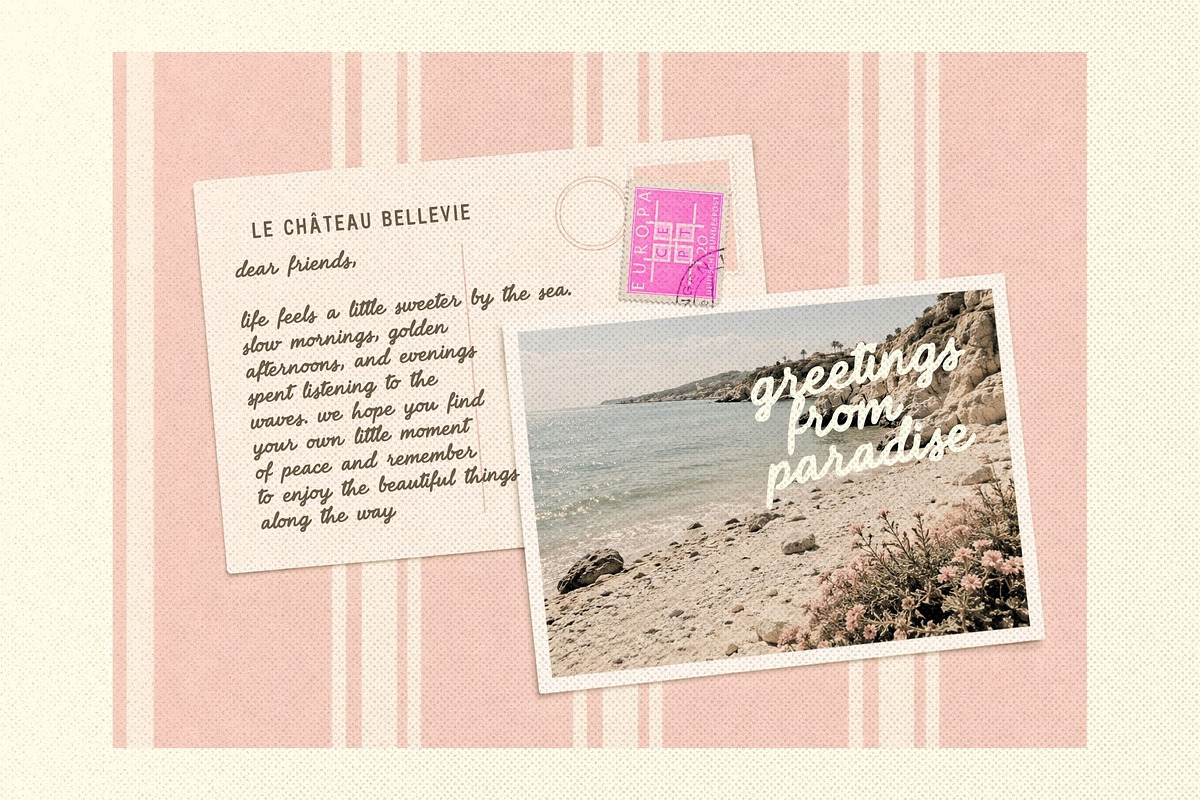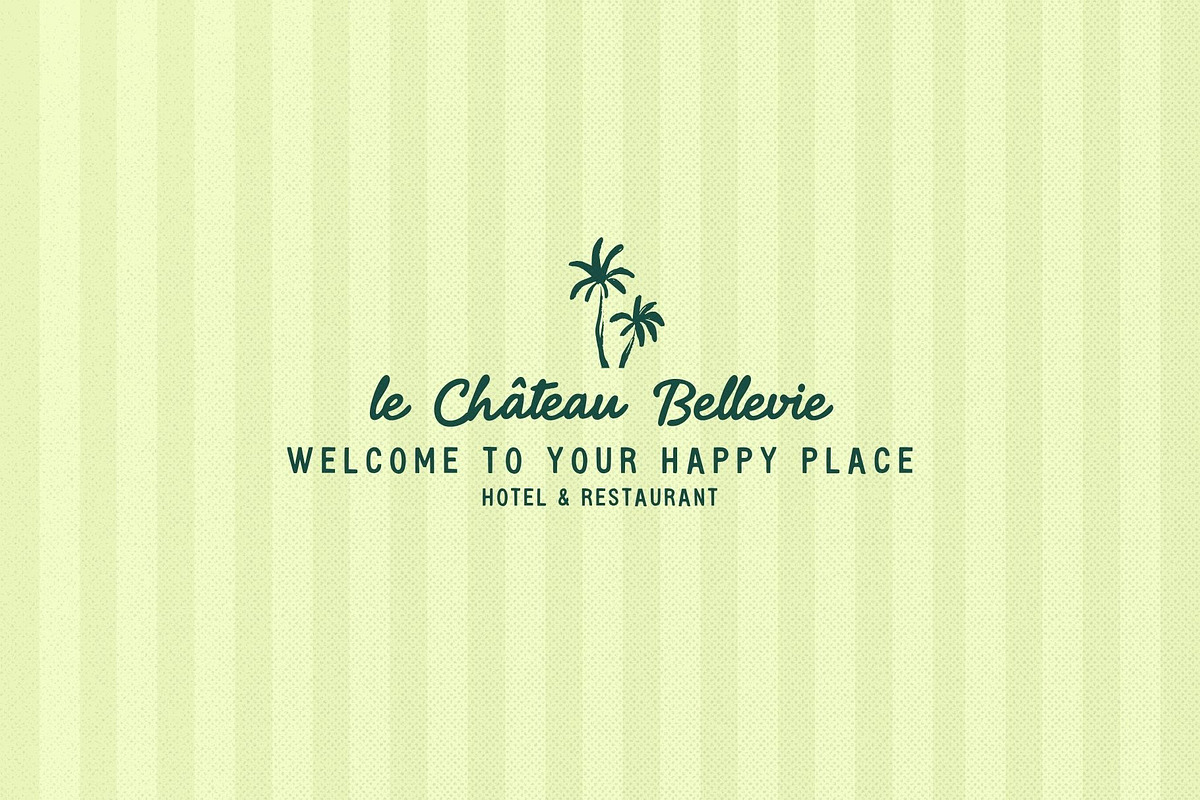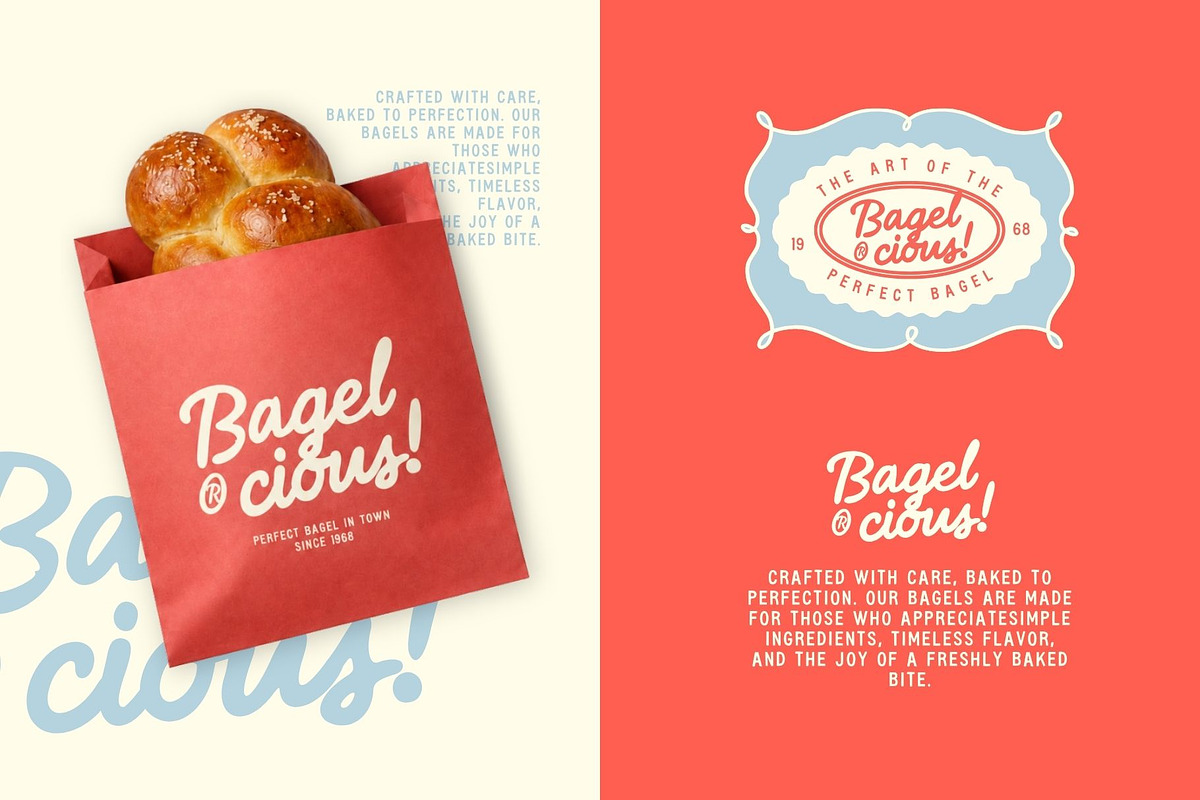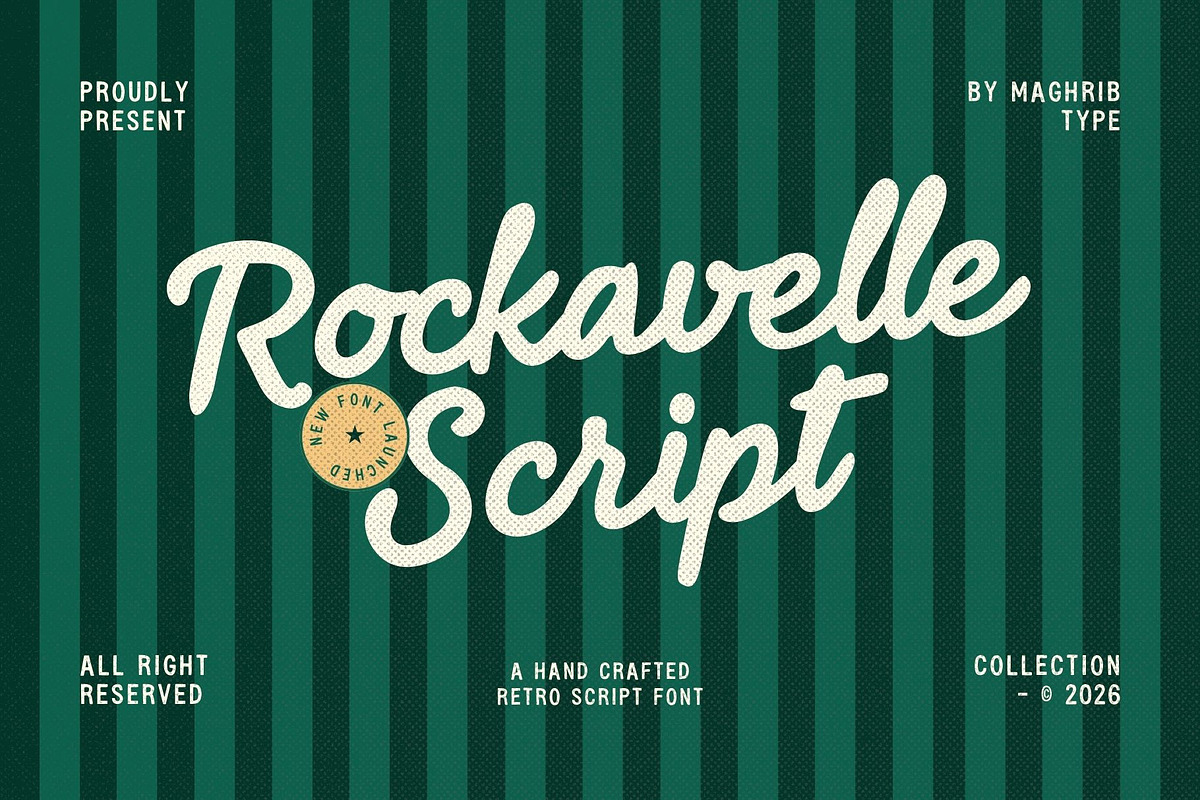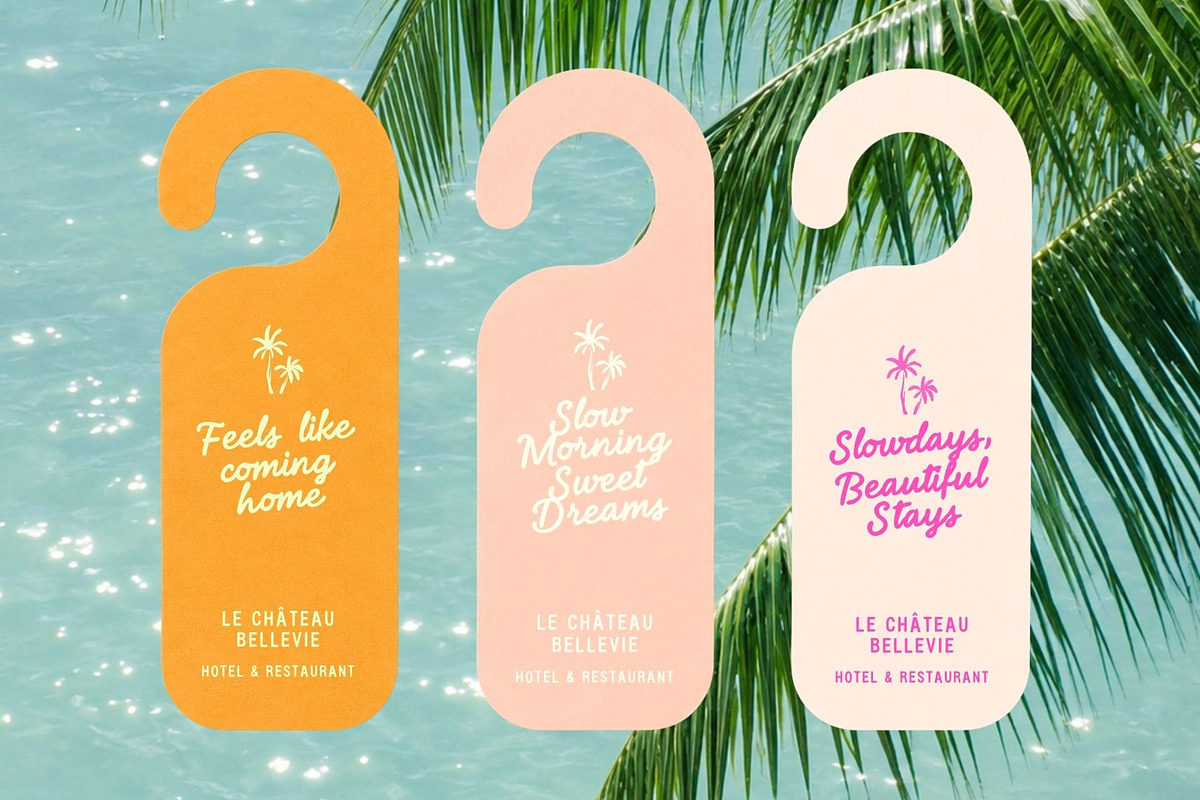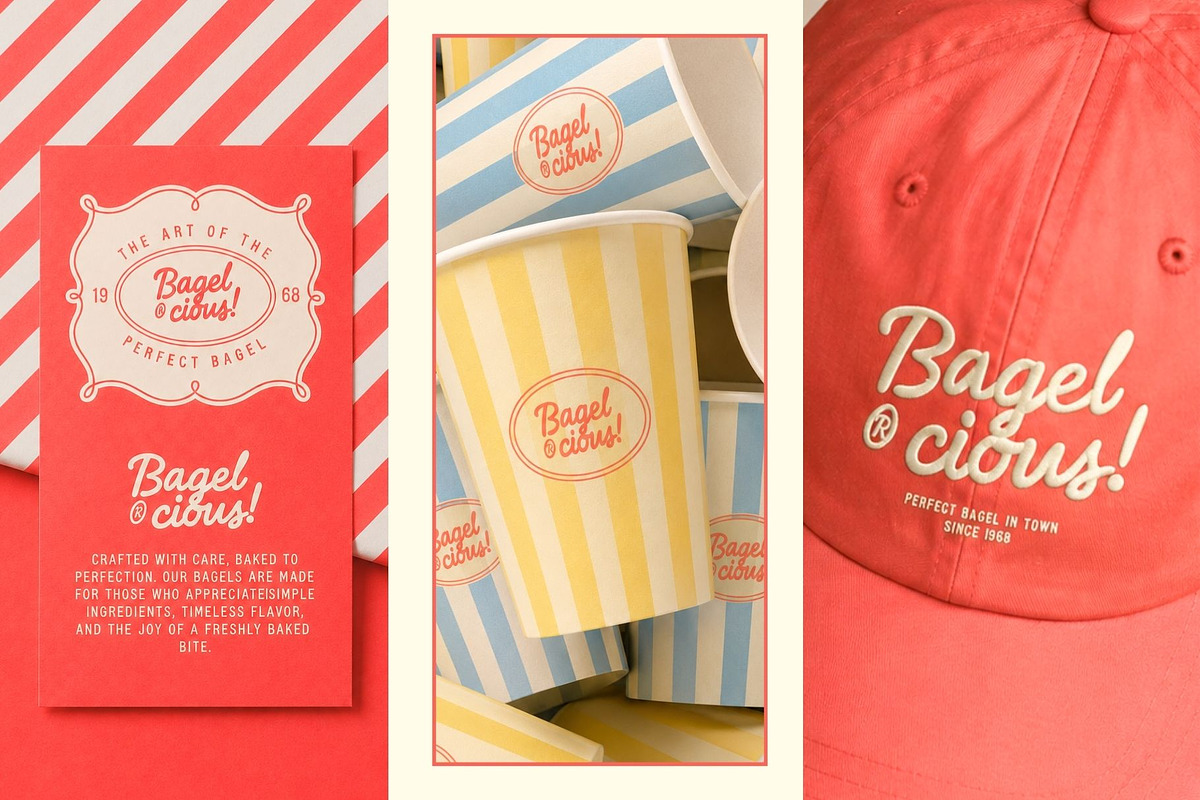
Rockavelle Script
Rockavelle Script – Retro Summer Christmas Font
Rockavelle Script is a playful hand-crafted retro script font inspired by warm summer days, tropical holidays, vintage travel posters, and nostalgic Christmas moments.
With its bold flowing strokes and expressive handwritten character, Rockavelle brings a relaxed vintage personality to logos, branding, packaging, posters, apparel, greeting cards, invitations, social media designs, and seasonal projects.
Its unique character makes it especially fun for summer branding, tropical designs, beach graphics, Christmas projects, holiday packaging, retro logos, and nostalgic lifestyle artwork.
Whether you're creating a sunny summer campaign or a cheerful Christmas collection, Rockavelle Script adds a warm, handcrafted touch with plenty of personality.
Summer & tropical branding
Beach and resort designs
Christmas & holiday projects
Retro logos and badges
Packaging and labels
Apparel and merchandise
Posters and advertisements
Greeting cards and invitations
Quotes and headlines
Cafe, bakery, and food branding
Travel and vacation designs
Rockavelle Script is made for designers who love expressive lettering, vintage character, and a laid-back retro feeling.